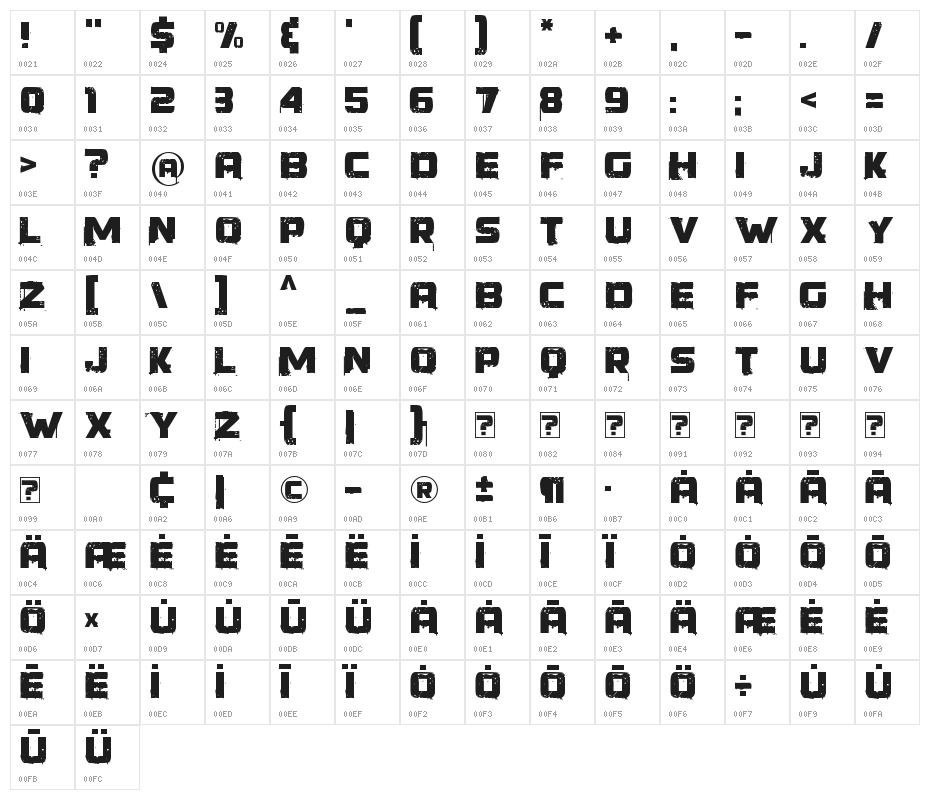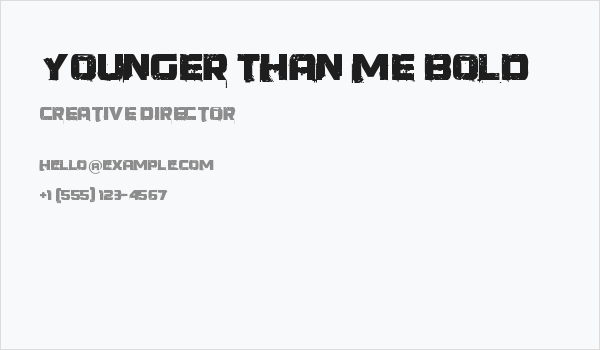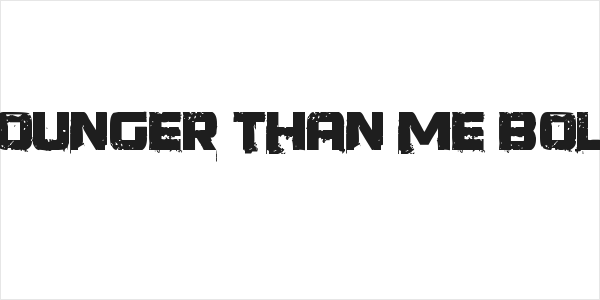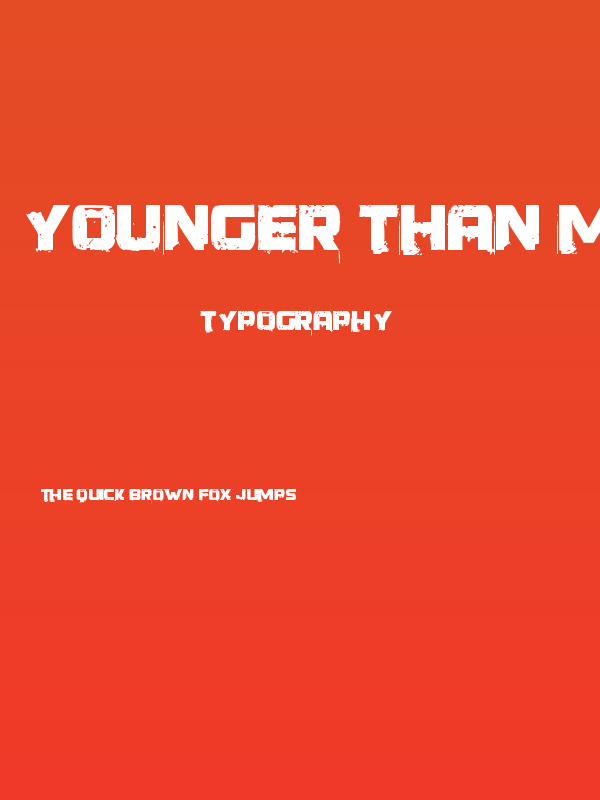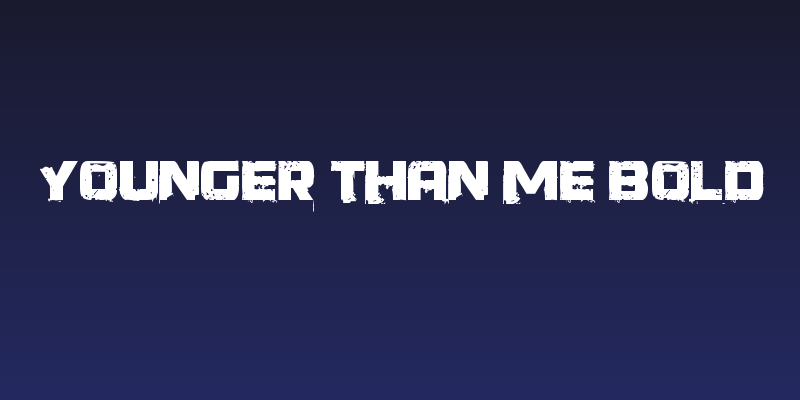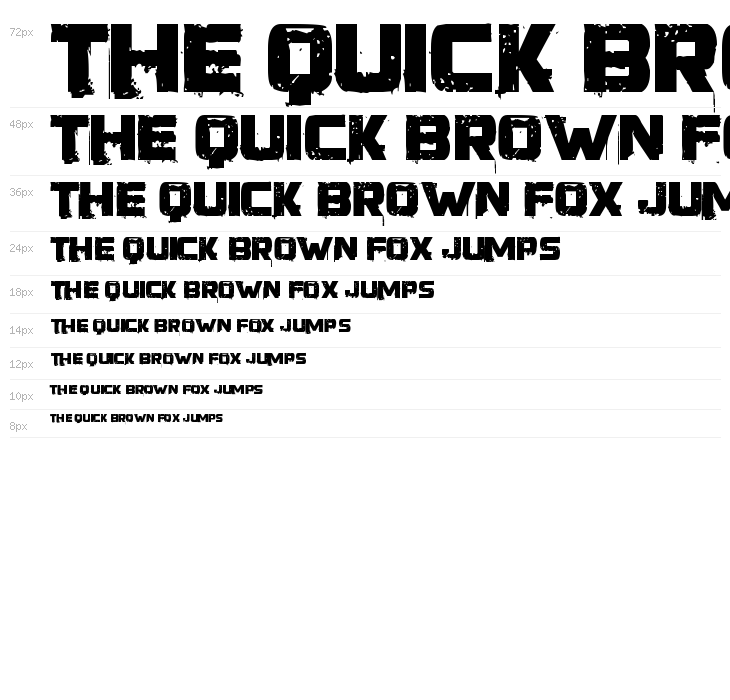
Younger than me Bold Font
Younger than me Bold Description
This font features a bold, distressed style with a rugged, textured appearance. Each character is designed with a rough, grunge effect, giving it a worn and weathered look. The uppercase letters are prominent and impactful, making them ideal for attention-grabbing headlines. The numbers and special characters maintain the same distressed aesthetic, ensuring consistency across all text elements. This font's unique style is perfect for projects that require a bold statement or an edgy, urban feel.
| Proposed Projects | Ideal for posters, album covers, streetwear branding, and any design needing an edgy, urban vibe. |